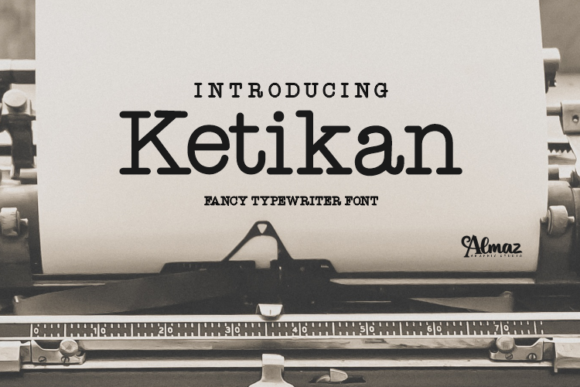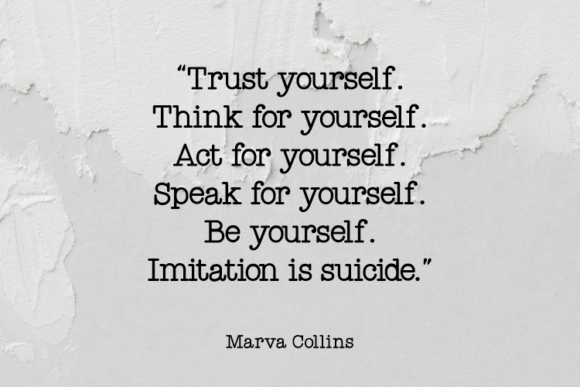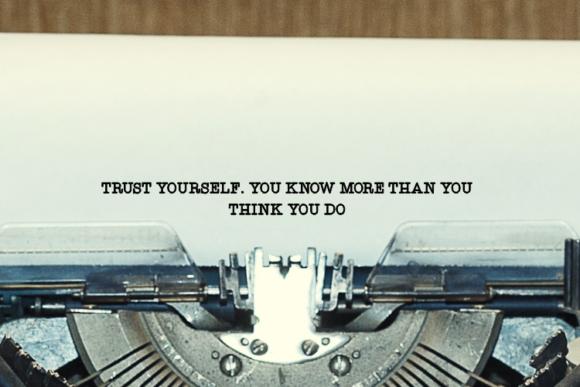
Ketikan Font: Authentic Typewriter Typography for Vintage Designs
About the Ketikan Font
Crafted with precision, the Ketikan Font is ready to bring your ideas to life. Ketikan is a creative and unique alternative solid typewriter font. The perfect font when looking for that authentic and original typewriter feel to your designs. This beautiful design combines the simplicity of typewriting stains.
Ketikan excels in headlines, short impactful statements, and branding applications where a vintage, authentic feel is desired. Its strong character makes it ideal for posters, logos, and packaging designs emphasizing a retro or industrial aesthetic. However, its solid, unvarying weight isn’t suited to body text or long paragraphs; readability suffers at smaller sizes. Avoid using it for UI elements or situations requiring high levels of legibility.
Pairing Ketikan effectively requires considering its strong personality. A clean sans-serif like Open Sans or Lato would provide a contemporary contrast, balancing its vintage charm. For a more refined look, a classic serif such as Garamond or Georgia could add elegance. Avoid pairing it with other highly decorative or overly stylized fonts, as this would create visual clutter.
Ketikan’s overall personality is bold and assertive, yet retains a playful vintage charm. It’s best suited to brands and projects that want to project a sense of authenticity, originality, and a slightly rebellious spirit, but with a touch of refined vintage cool.
Ketikan Font Usage Examples
Ketikan Font Example